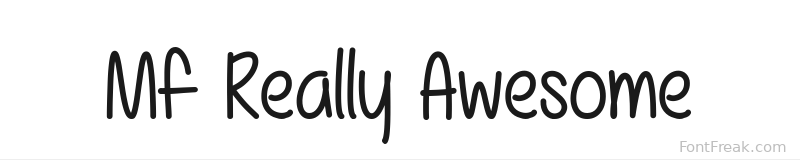
Mf Really Awesome
About Mf Really Awesome
Mf Really Awesome is a playful, handwritten font designed by Misti Hammers. This decorative typeface exhibits a casual yet stylish charm, making it perfect for a variety of creative projects. Its unique character comes from the slightly irregular stroke weight and organic forms, lending a sense of warmth and friendliness. The font features moderate contrast, with thicker strokes that add emphasis and create visual interest. The letter spacing is well-balanced, ensuring readability while maintaining a fun, informal aesthetic.
This font is particularly well-suited for use cases such as wedding invitations, where its charming flair can add a personal touch. It also excels in creating eye-catching movie posters, capturing attention with its lively and engaging style. Small business owners can utilize Mf Really Awesome for restaurant menus, giving a warm and inviting feel to their offerings. Additionally, content creators can incorporate this font into social media graphics, ensuring their posts stand out in crowded feeds.
The target audience for the Mf Really Awesome font includes graphic designers looking for a unique typeface to enhance their projects, small business owners wanting to create memorable branding, and content creators aiming to elevate their visual storytelling. This font's ability to evoke a sense of fun and creativity makes it a versatile choice for anyone in need of a distinctive design element.
What sets the Mf Really Awesome font apart is its blend of playfulness and elegance. It embodies a casual sophistication that can enliven any design, making it a valuable addition to any designer's toolkit. With its freeware license, this font is accessible for everyone, inviting you to explore its potential. Don’t miss out on the Mf Really Awesome font free download to bring your creative visions to life.